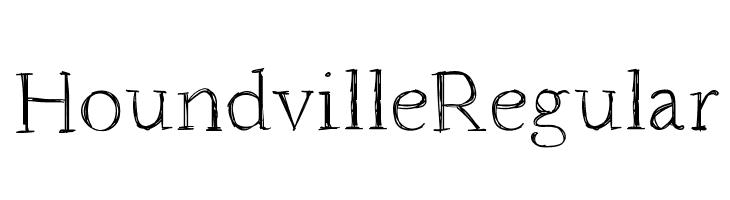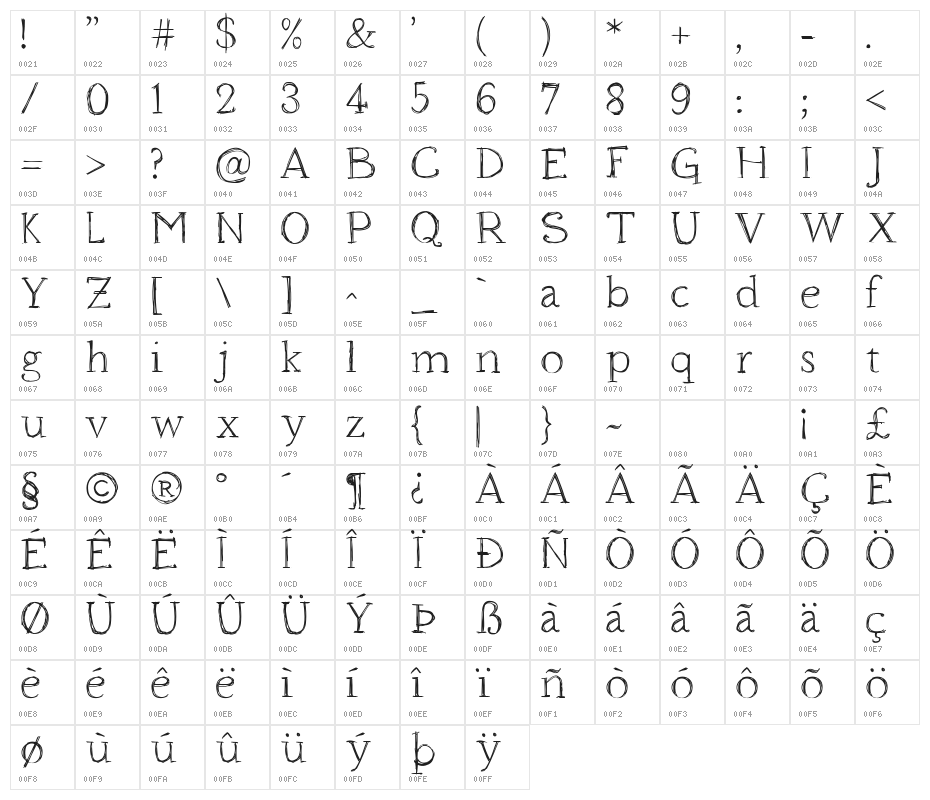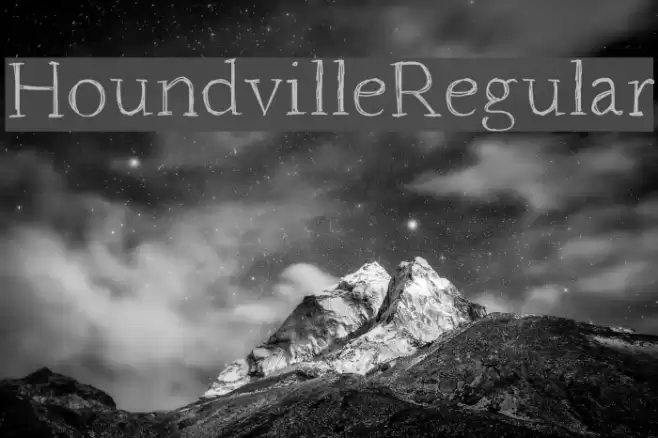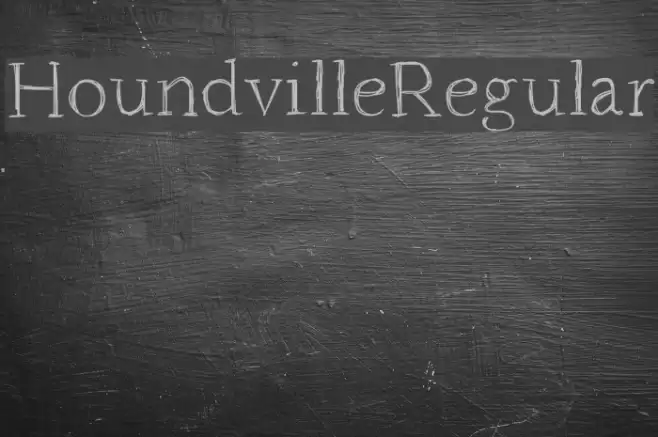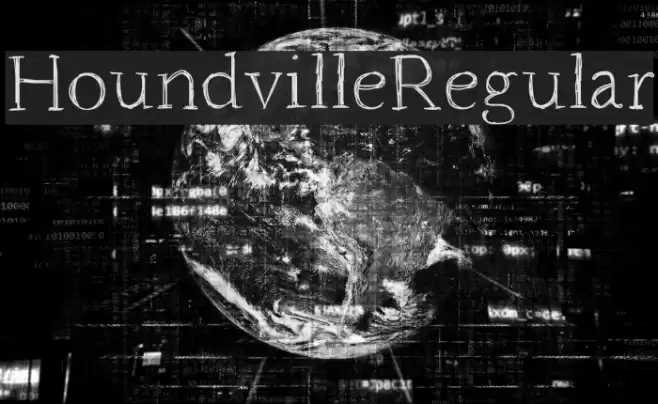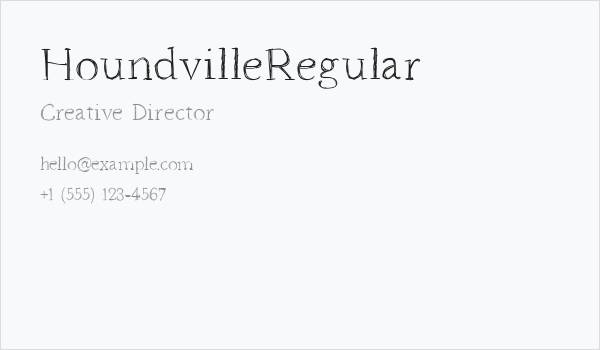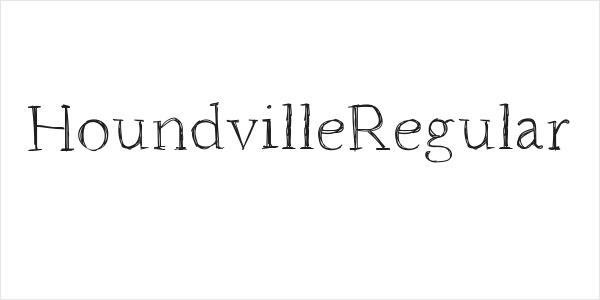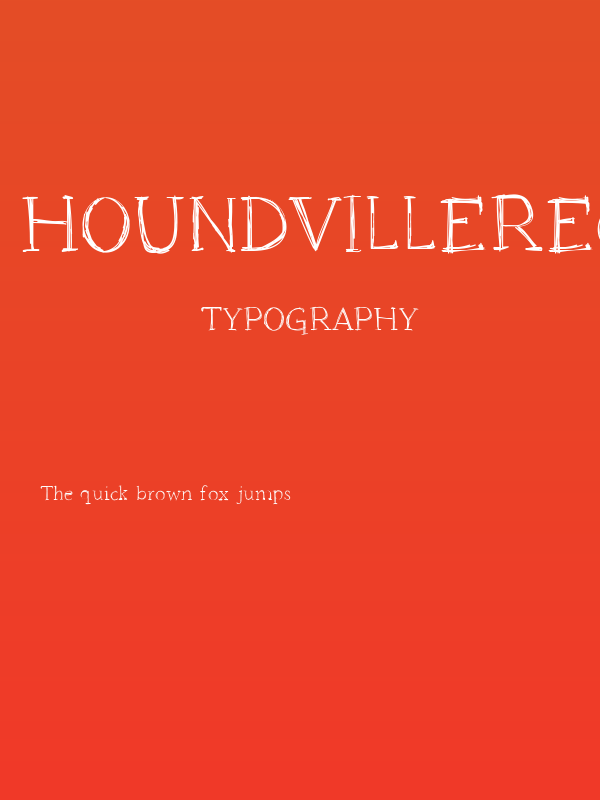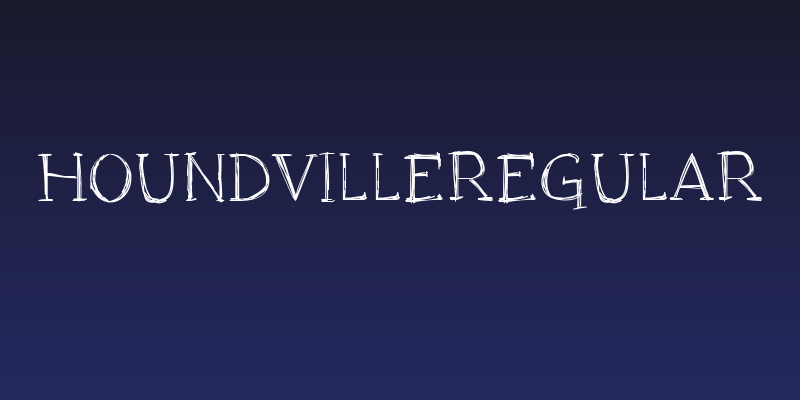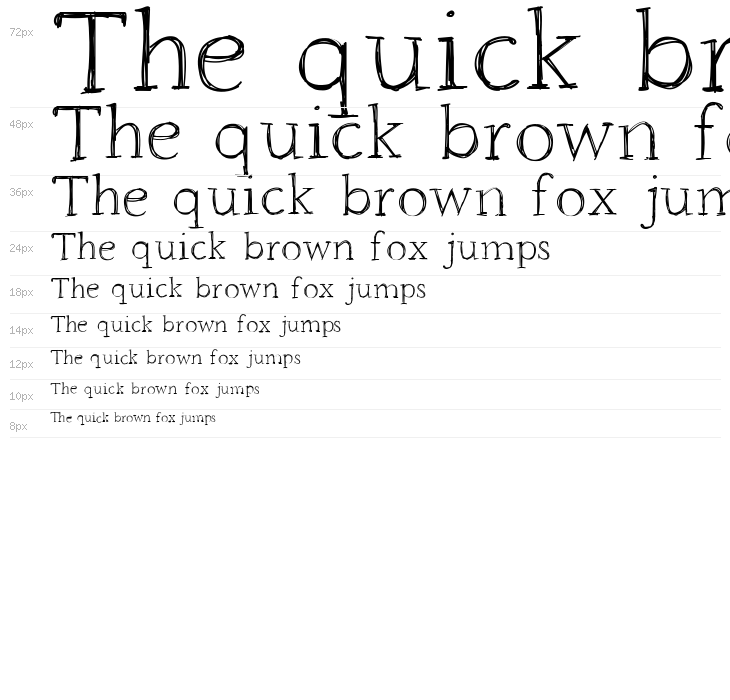
HoundvilleRegular Font
HoundvilleRegular Description
This font features a playful, hand-drawn style with a slightly irregular and sketchy appearance. The letters have a whimsical, artistic flair, characterized by uneven strokes and a casual, informal look. The uppercase and lowercase letters maintain a consistent style, with the uppercase letters being slightly larger and more pronounced. The numbers and special characters follow the same design, adding to the overall cohesive feel. The font's unique, handcrafted aesthetic makes it stand out, offering a creative and expressive option for various design projects.
| Use Case | Headlines, Logos, Artistic designs |
| Proposed Projects | Ideal for creative projects such as children's books, greeting cards, posters, and artistic branding. |